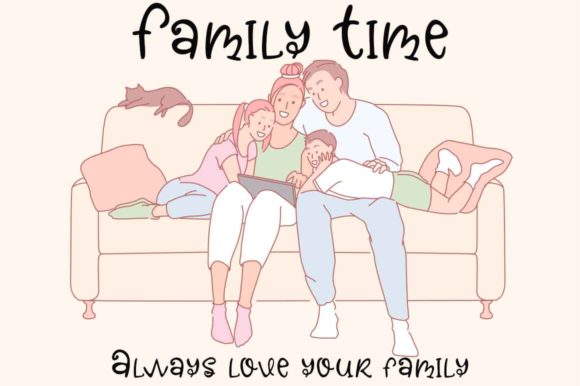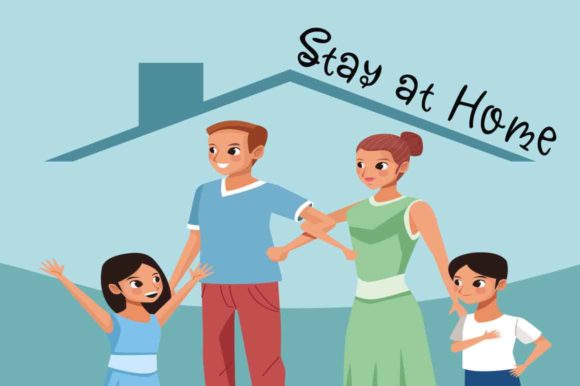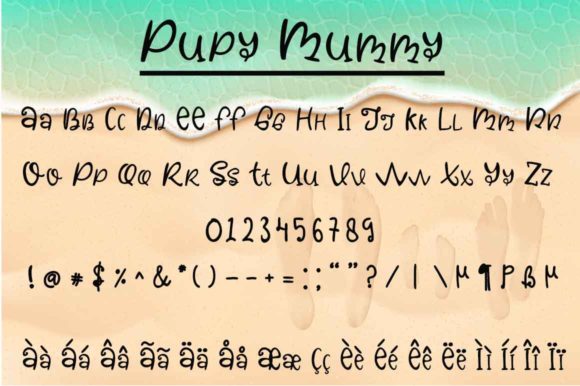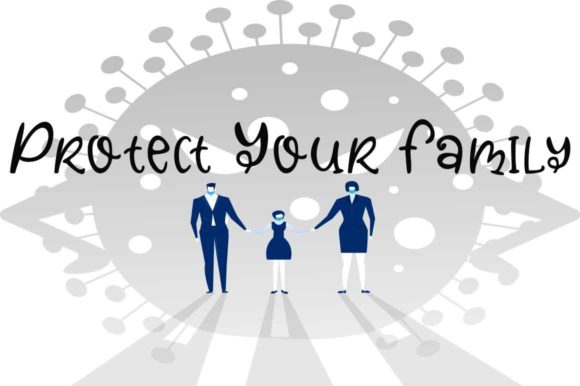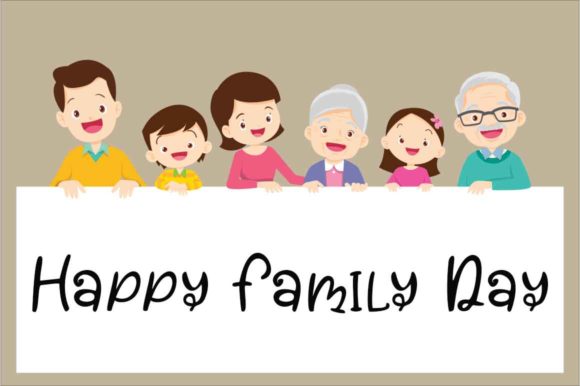
Puppy Mummy Font
About Puppy Mummy Font
Puppy Mummy is a sweet and friendly handwritten font. Its natural and unique style makes it incredibly fitting to a large pool of designs. The only limit is your imagination!